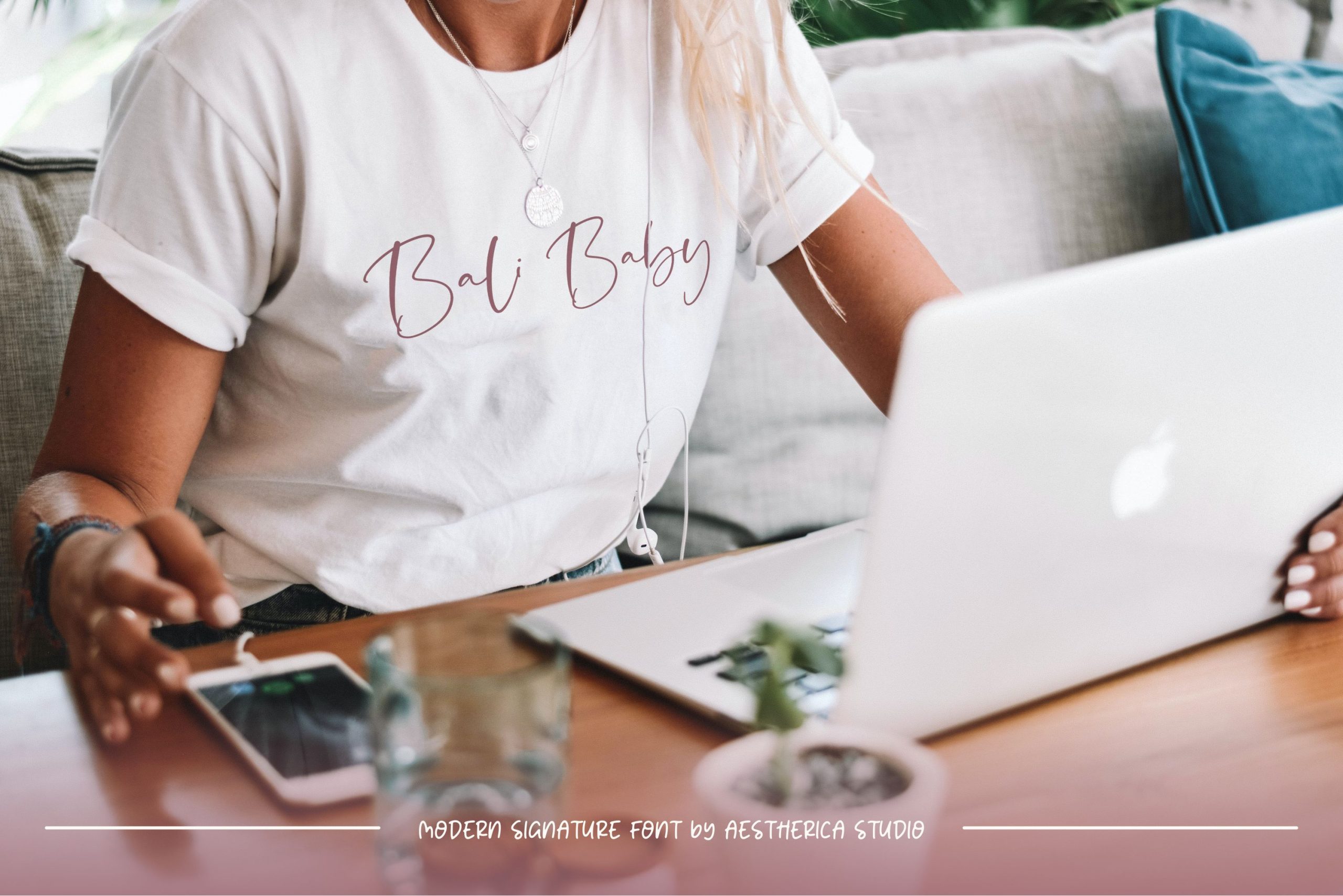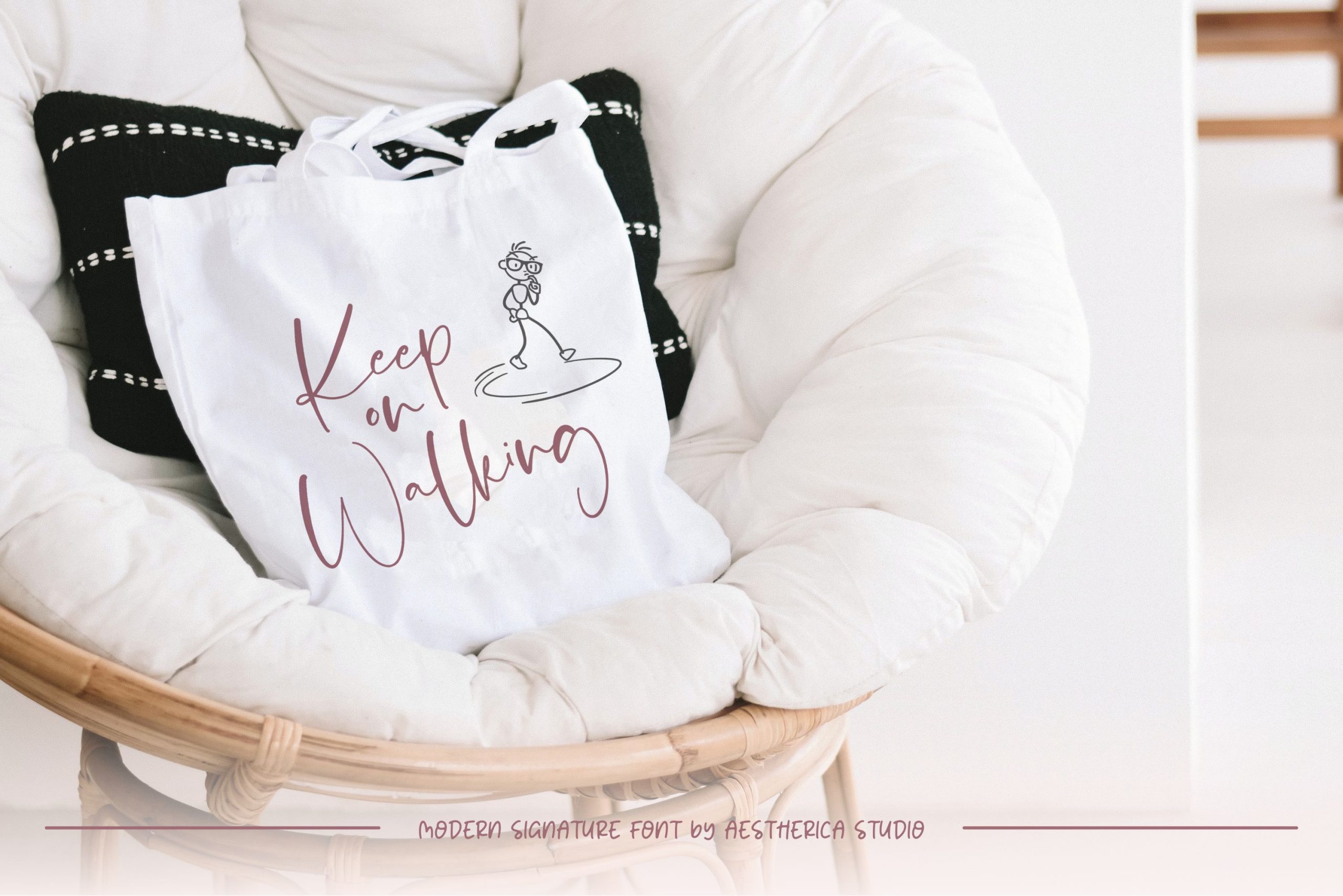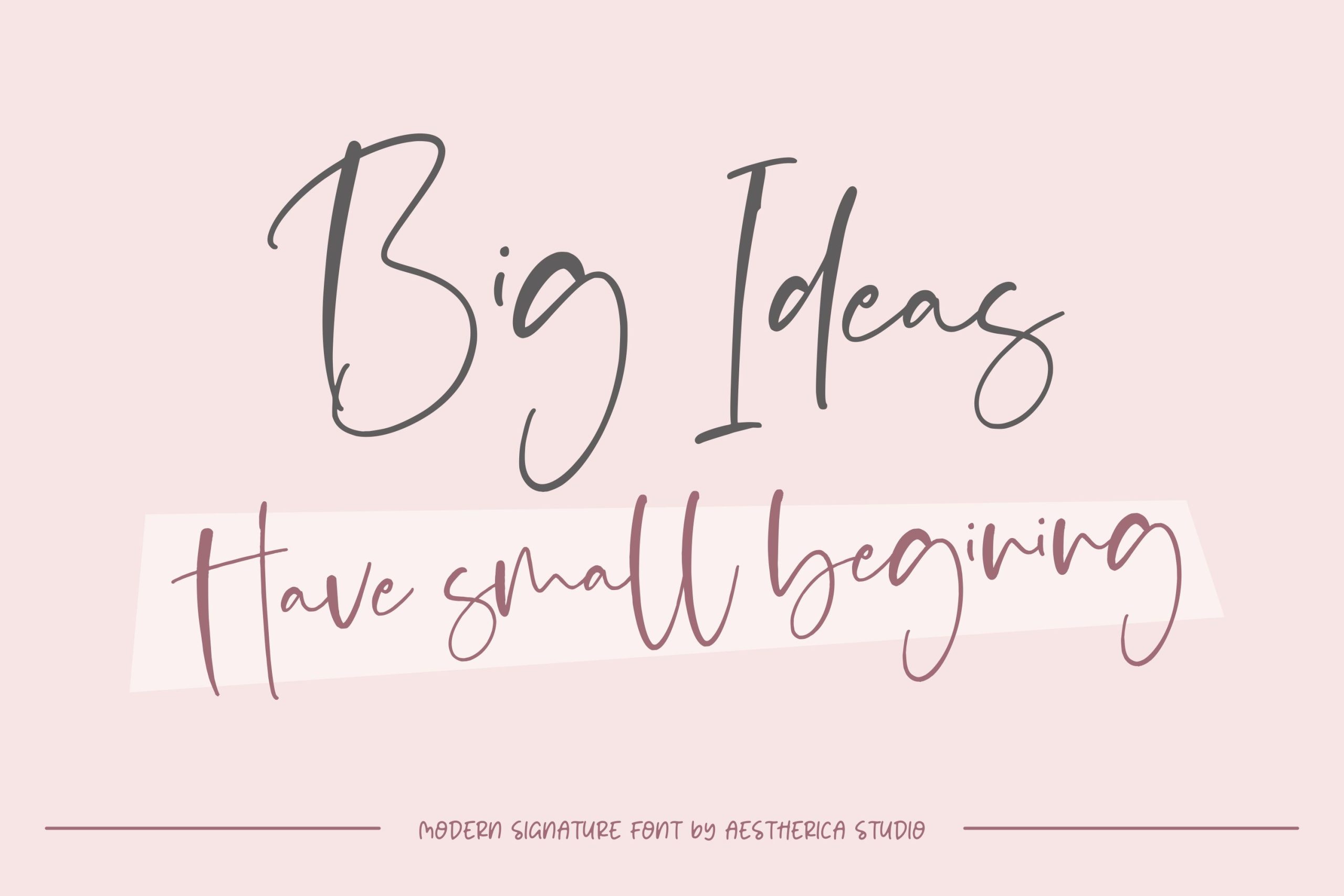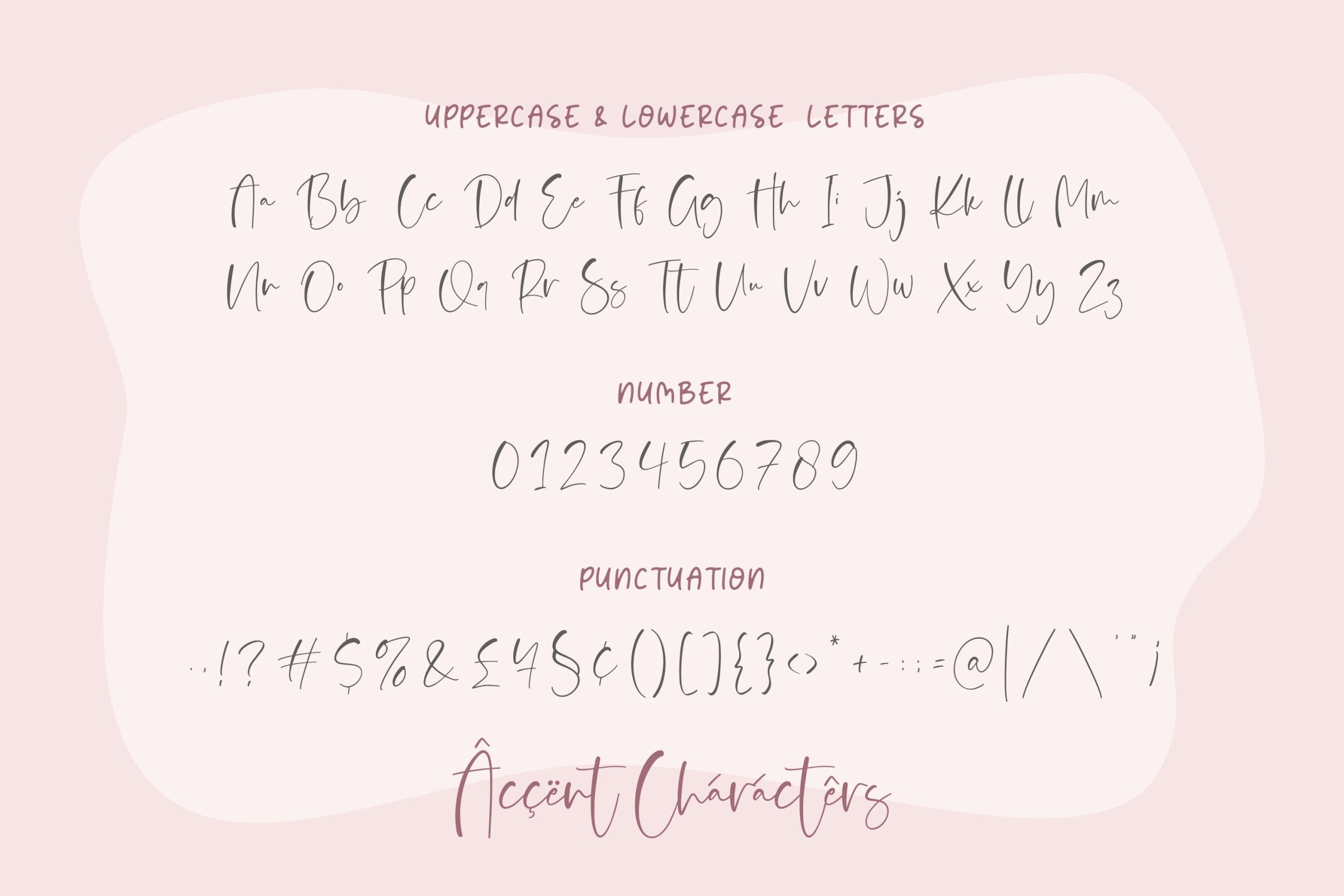
Signatica Font
Signatica script Font
This is a handwritten script font with a clear style and dramatic movement. Signatica is perfect for branding projects, logos, wedding designs, social media posts, advertisements, product packaging, product designs, label, photography, watermark, invitation, stationery, and any projects that need handwriting touch.